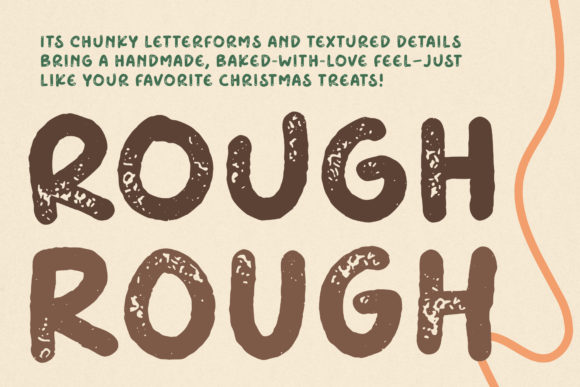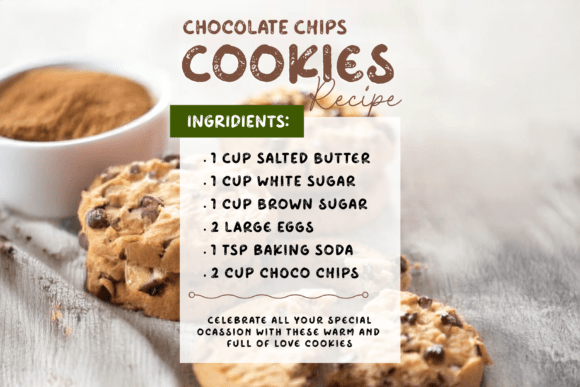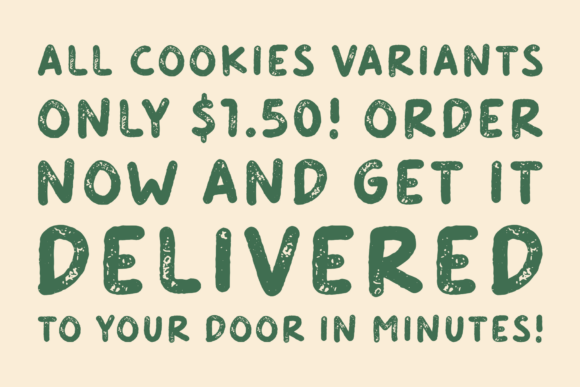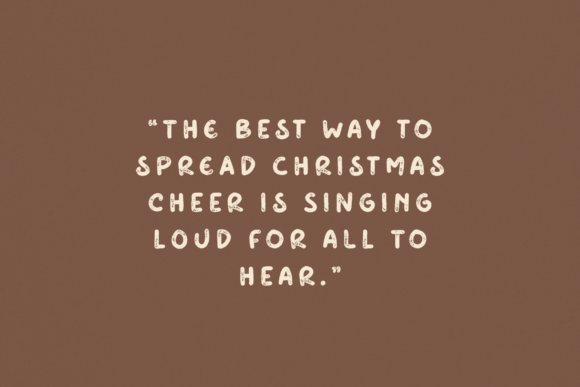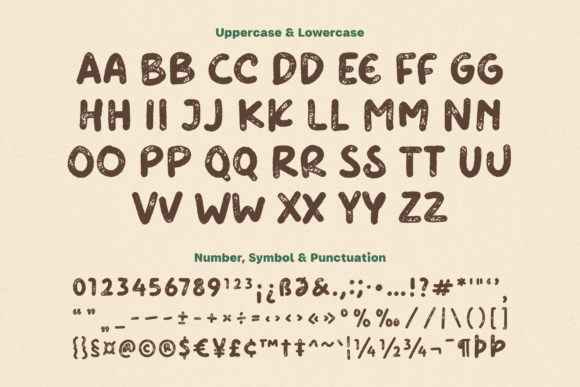
Christmas Cookies Font: The Sweetest Addition to Your Holiday Designs
Are you looking for a font that captures the cozy warmth and festive spirit of the holiday season? Look no further than Christmas Cookies, a fun and rough display font that’s perfect for adding a touch of handmade charm to your designs. With its chunky, textured letters and sweet holiday cheer, Christmas Cookies is the ideal choice for designers and crafters who want to create eye-catching and engaging holiday projects.
What is Christmas Cookies Font?
Christmas Cookies is a unique and playful display font that’s designed to evoke the feeling of freshly baked holiday treats. Its chunky, textured letters have a handmade quality that’s perfect for creating festive and fun designs. Whether you’re working on Christmas cards, gift tags, posters, or packaging, Christmas Cookies is the perfect font to add a touch of holiday magic to your projects.
Key Features of Christmas Cookies Font
- Chunky and Textured Letters: Christmas Cookies features chunky, textured letters that have a handmade quality, giving your designs a unique and rustic touch.
- Fun and Playful: This font is perfect for creating fun and playful holiday designs that are sure to bring a smile to people’s faces.
- Perfect for Holiday Projects: Christmas Cookies is specifically designed for holiday projects, making it the perfect choice for Christmas cards, gift tags, posters, and more.
Uses for Christmas Cookies Font
Christmas Cookies is a versatile font that can be used for a wide range of holiday projects, including:
- Christmas Cards: Add a personal touch to your holiday cards with Christmas Cookies, creating unique and eye-catching designs that are sure to impress.
- Festive Packaging: Use Christmas Cookies to create festive and fun packaging for your holiday gifts, adding a touch of handmade charm to your presents.
- Posters and Flyers: Create eye-catching posters and flyers with Christmas Cookies, perfect for promoting holiday events or sales.
- Social Media Graphics: Use Christmas Cookies to create engaging social media graphics that are sure to get your followers in the holiday spirit.
Why Choose Christmas Cookies Font?
With so many fonts to choose from, why should you choose Christmas Cookies? Here are just a few reasons:
- Unique and Playful: Christmas Cookies is a unique and playful font that’s sure to stand out from the crowd.
- Handmade Quality: The chunky, textured letters of Christmas Cookies have a handmade quality that’s perfect for creating rustic and charming holiday designs.
Tips for Using Christmas Cookies Font
Here are a few tips for getting the most out of Christmas Cookies:
- Use it Sparingly: While Christmas Cookies is a fun and playful font, it can be overwhelming if used too much. Use it sparingly to add a touch of holiday cheer to your designs.
- Pair it with Other Fonts: Christmas Cookies pairs well with other fonts, so don’t be afraid to experiment with different combinations.
- Experiment with Colors: The chunky, textured letters of Christmas Cookies look great in a variety of colors, so don’t be afraid to experiment and find the perfect hue for your design.
Christmas Cookies is a fun and playful font that’s perfect for adding a touch of holiday cheer to your designs. With its chunky, textured letters and handmade quality, it’s the ideal choice for designers and crafters who want to create eye-catching and engaging holiday projects. Whether you’re working on Christmas cards, gift tags, posters, or packaging, Christmas Cookies is the perfect font to bring sweet holiday cheer to every project.